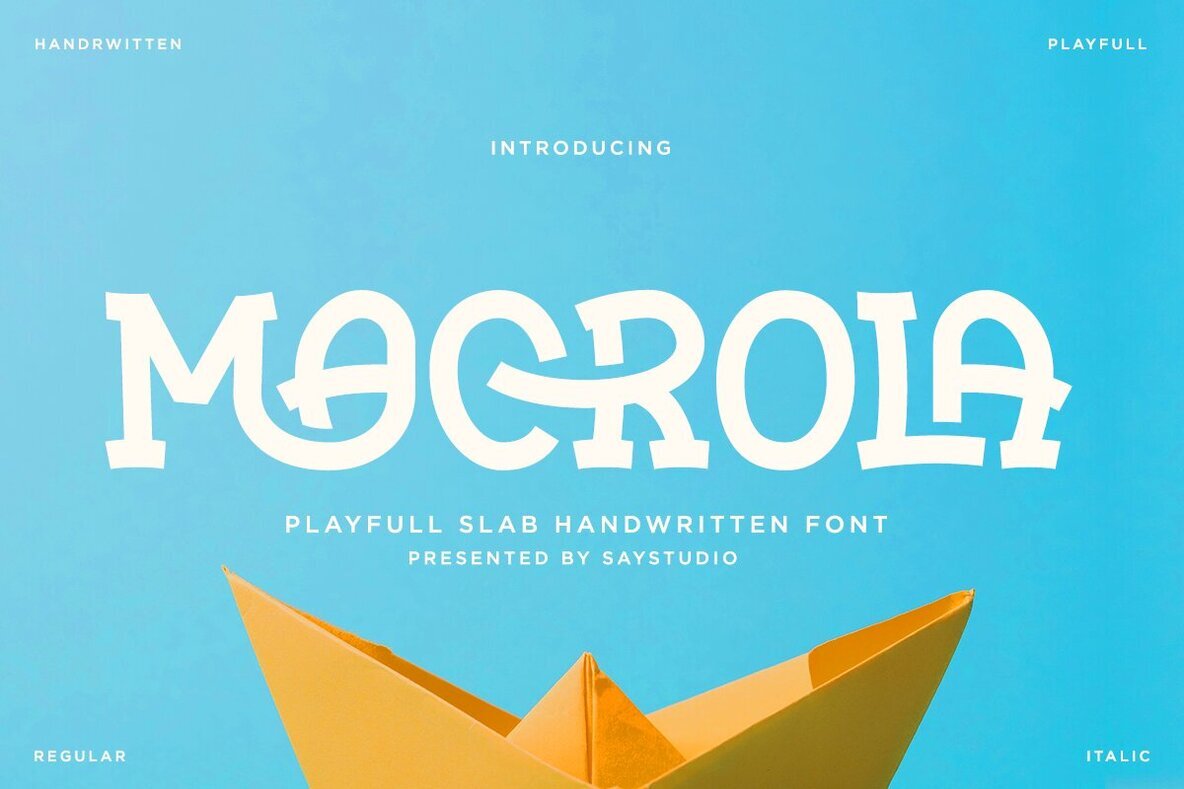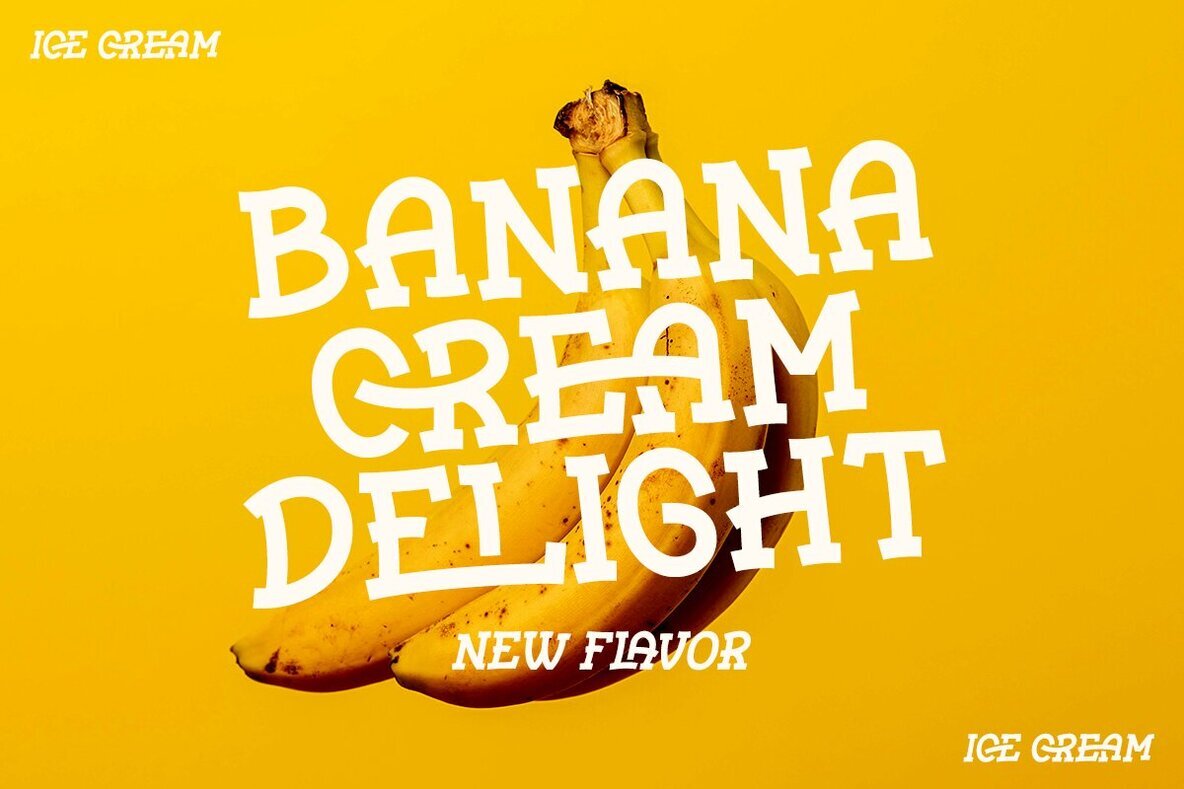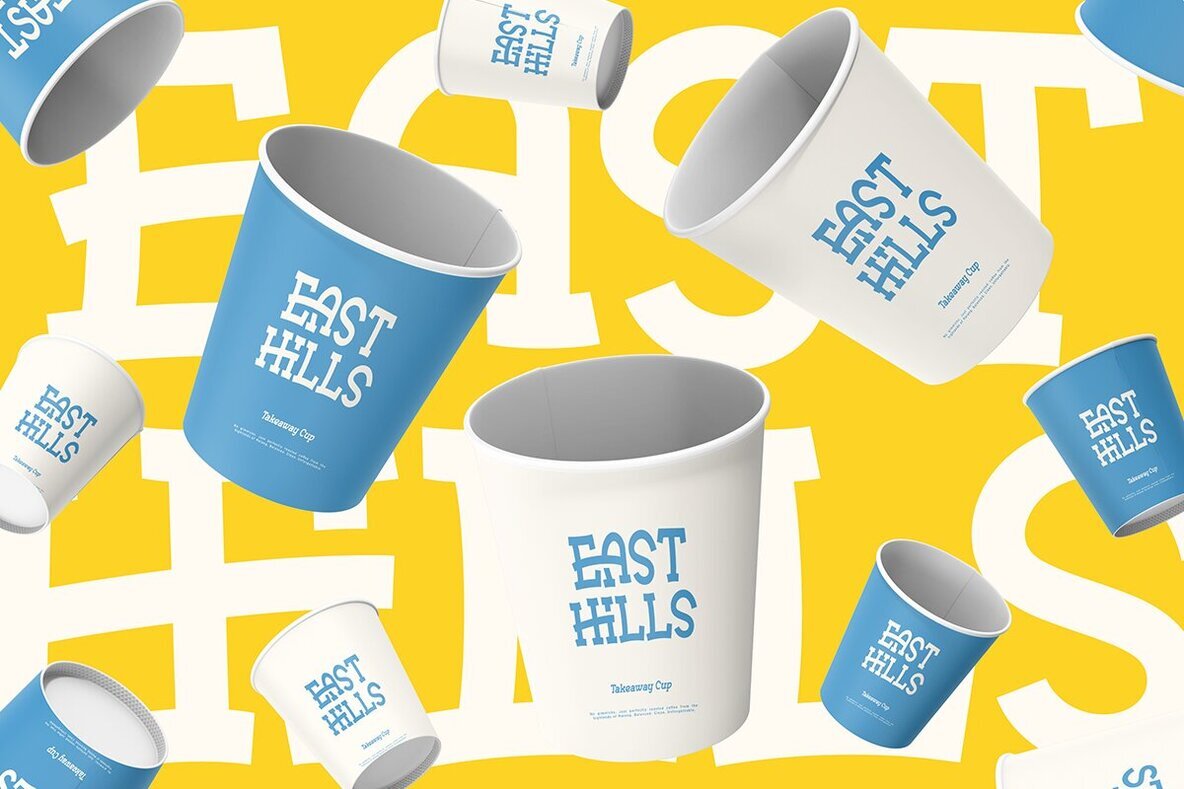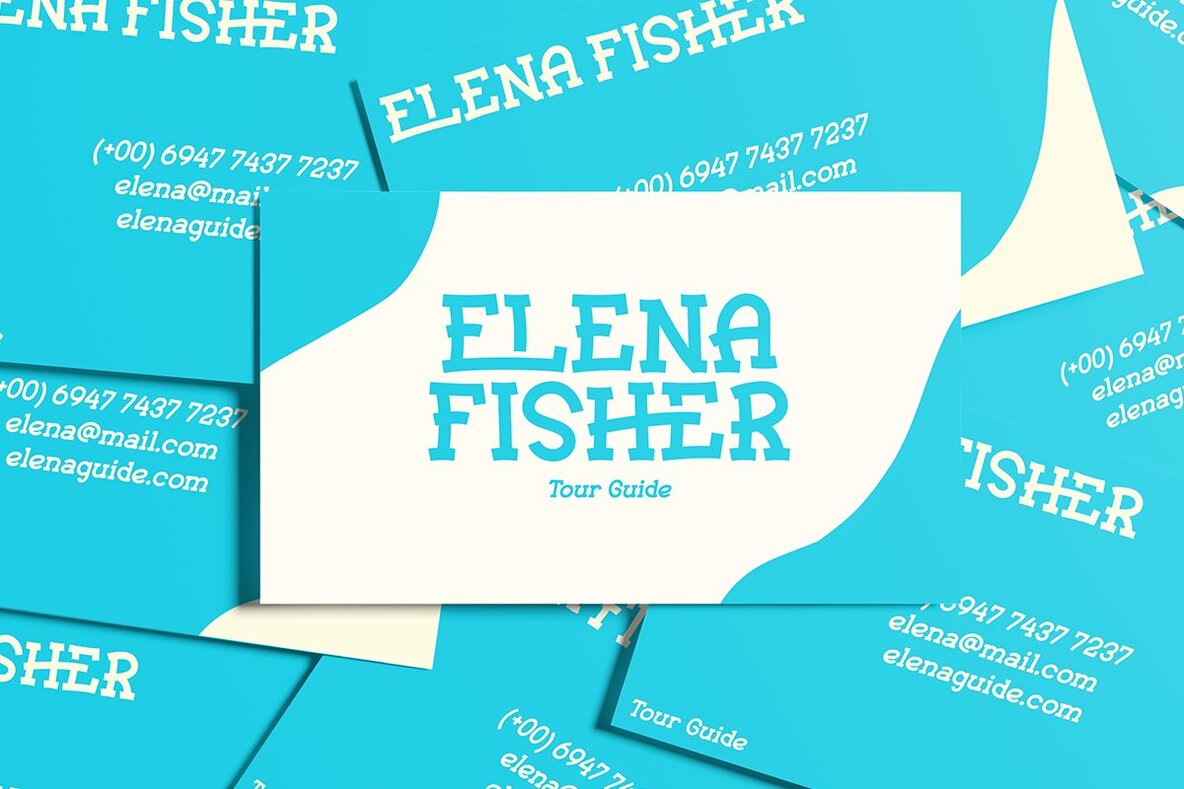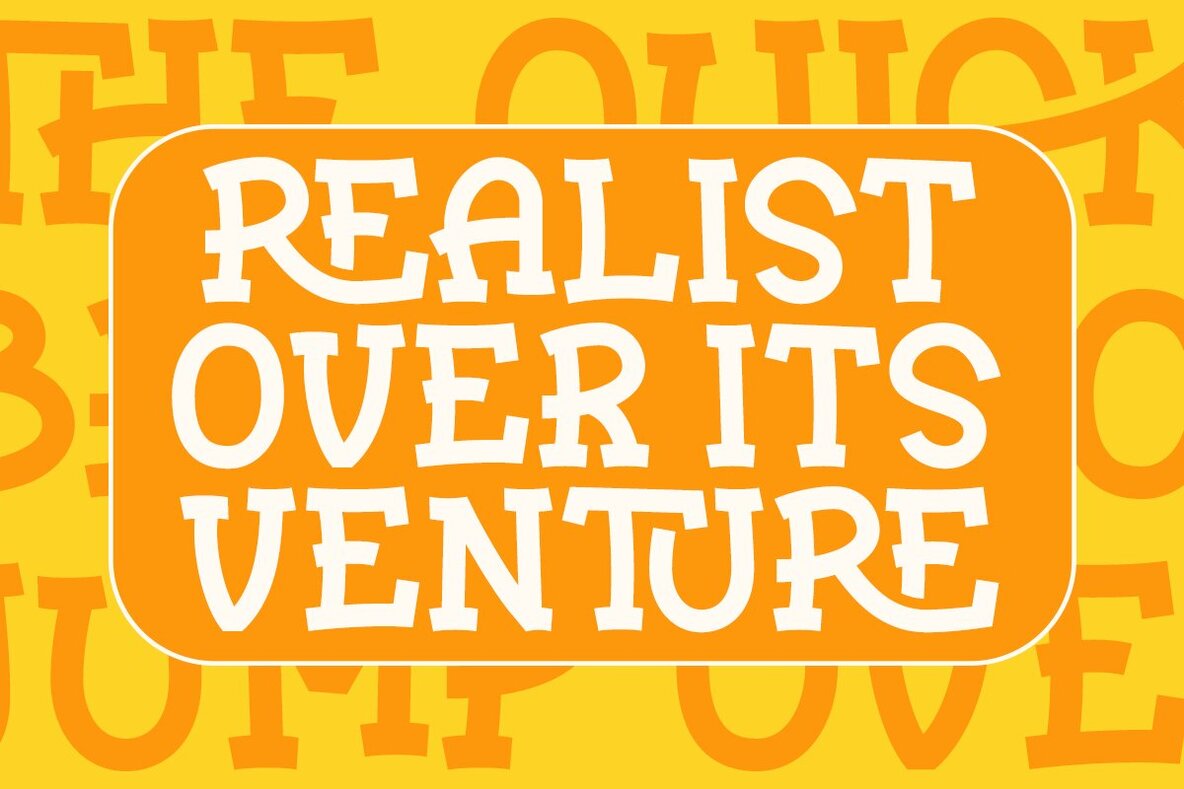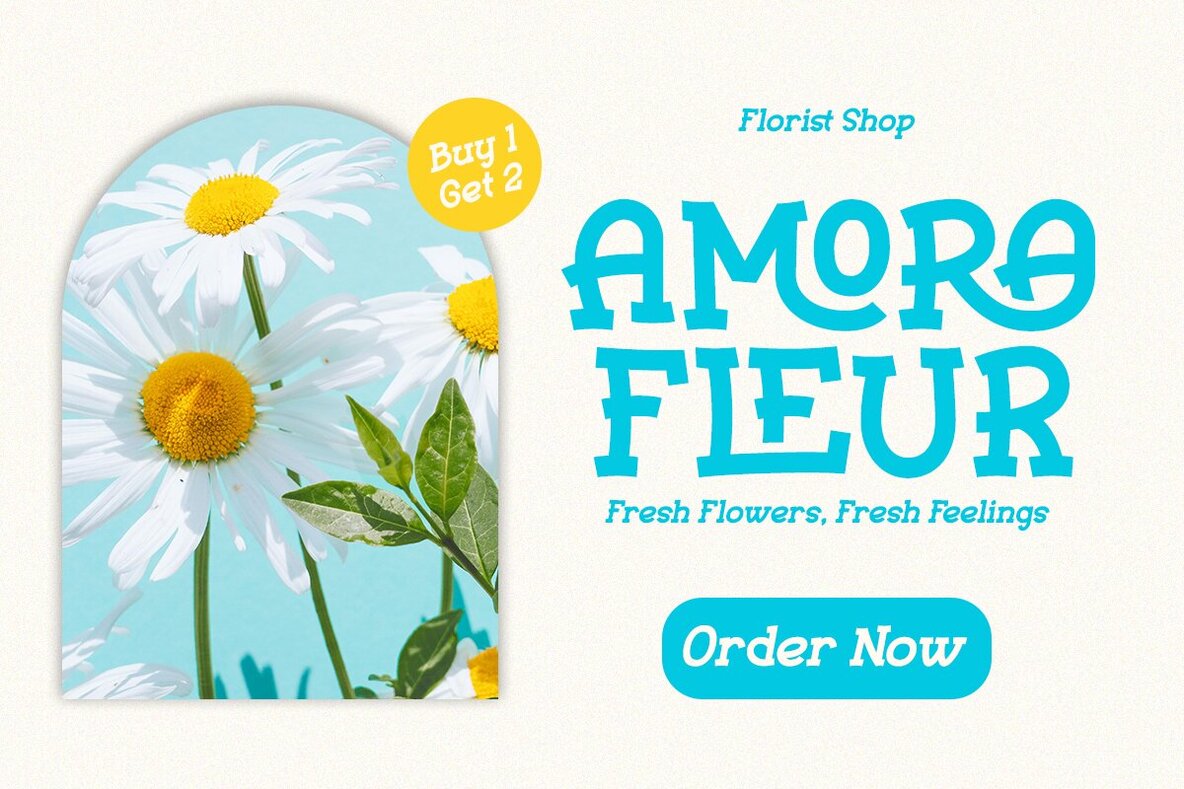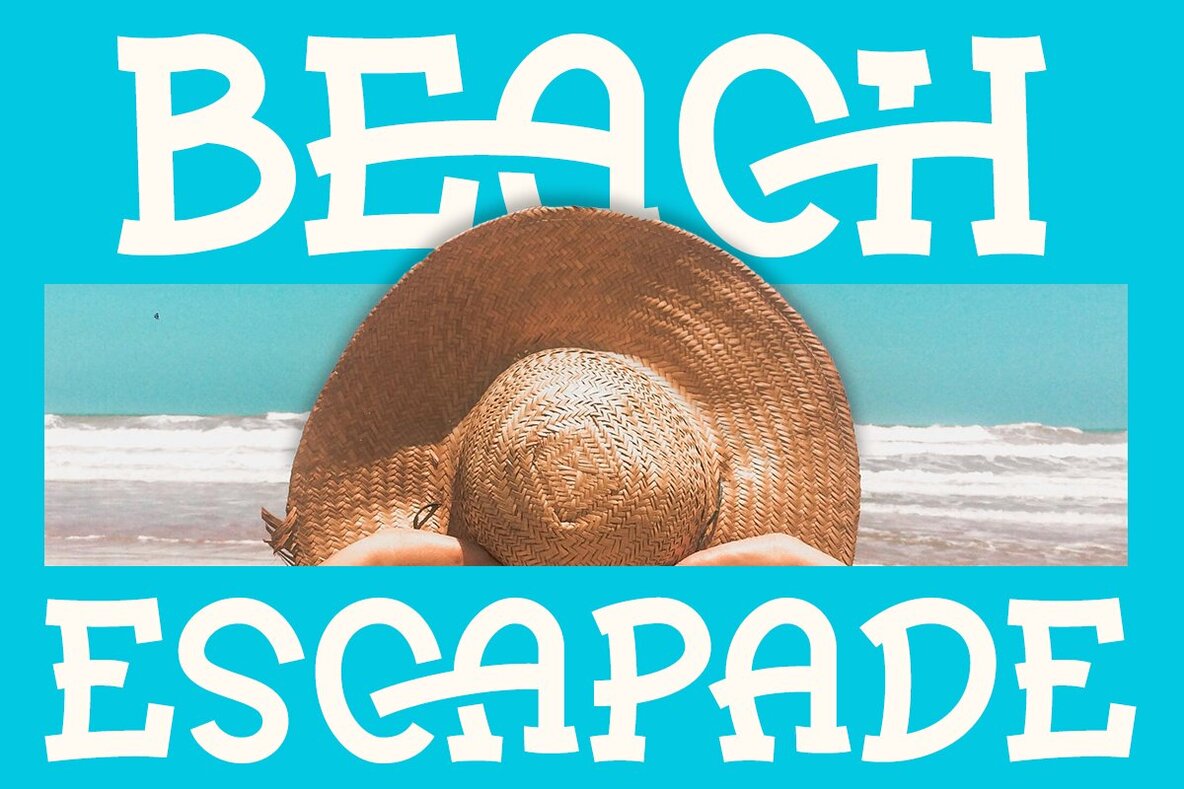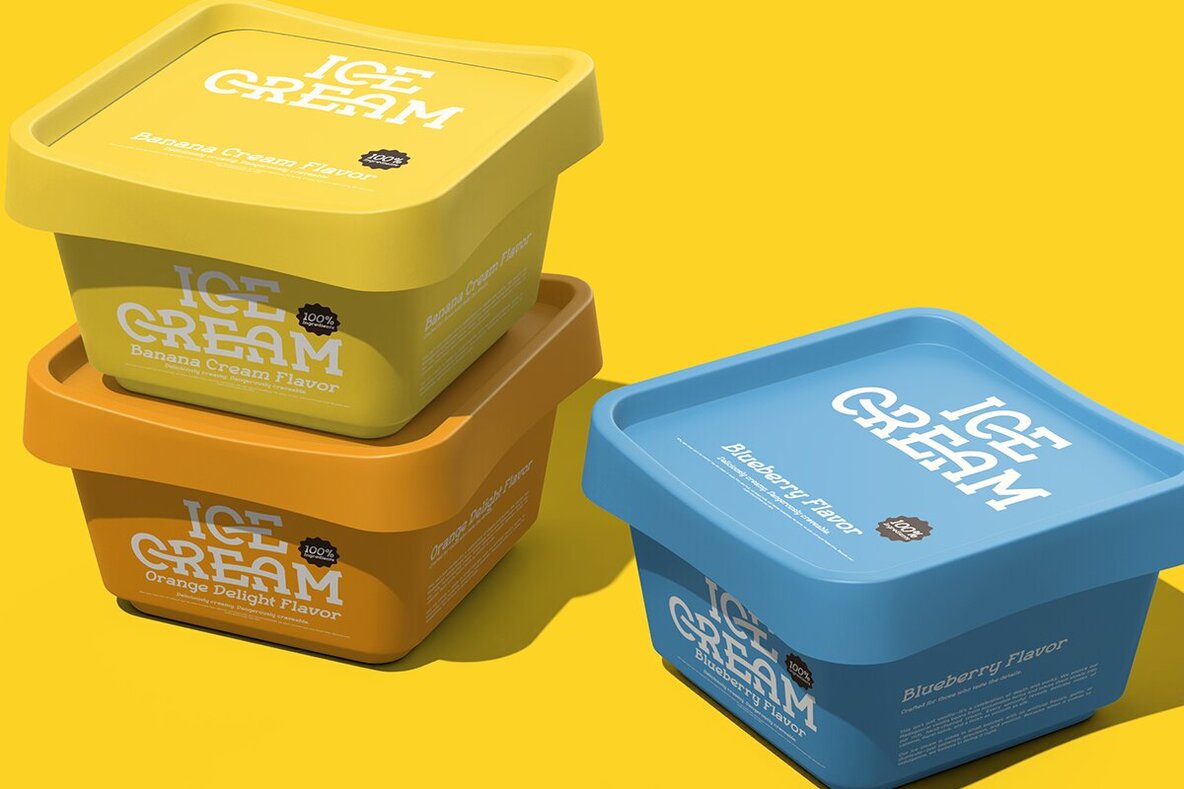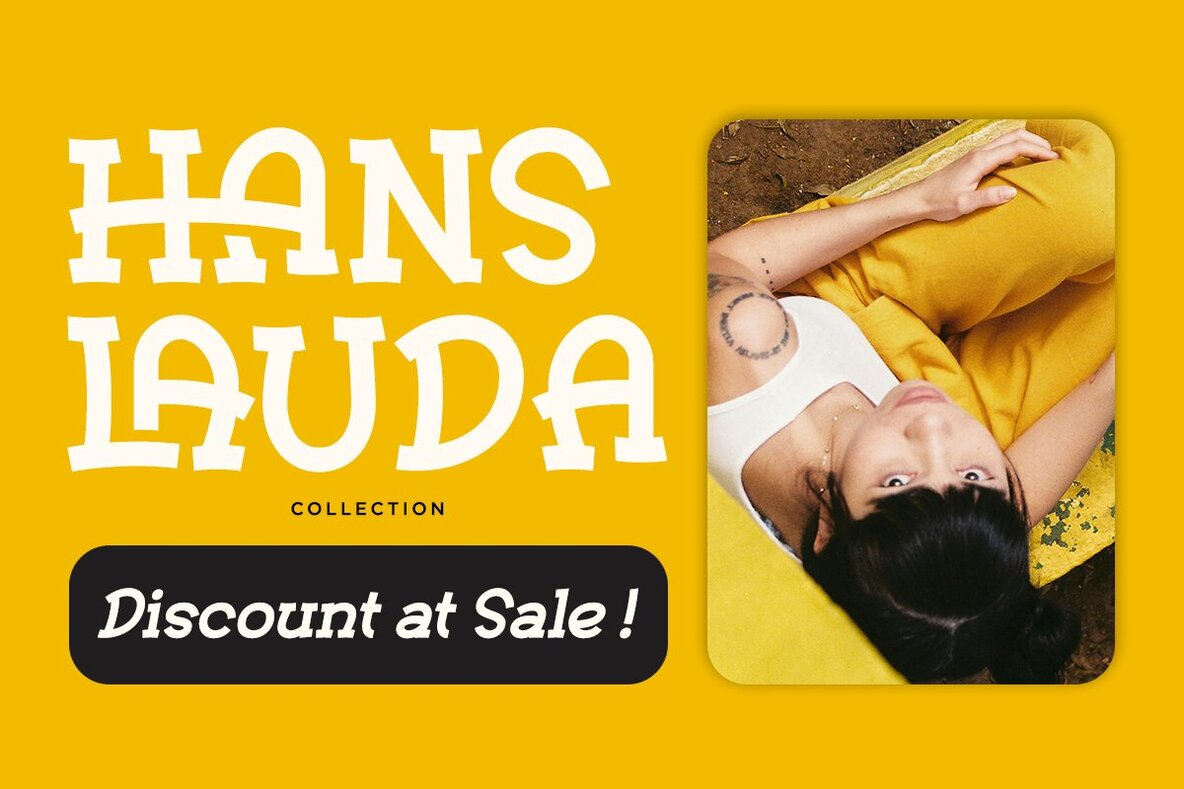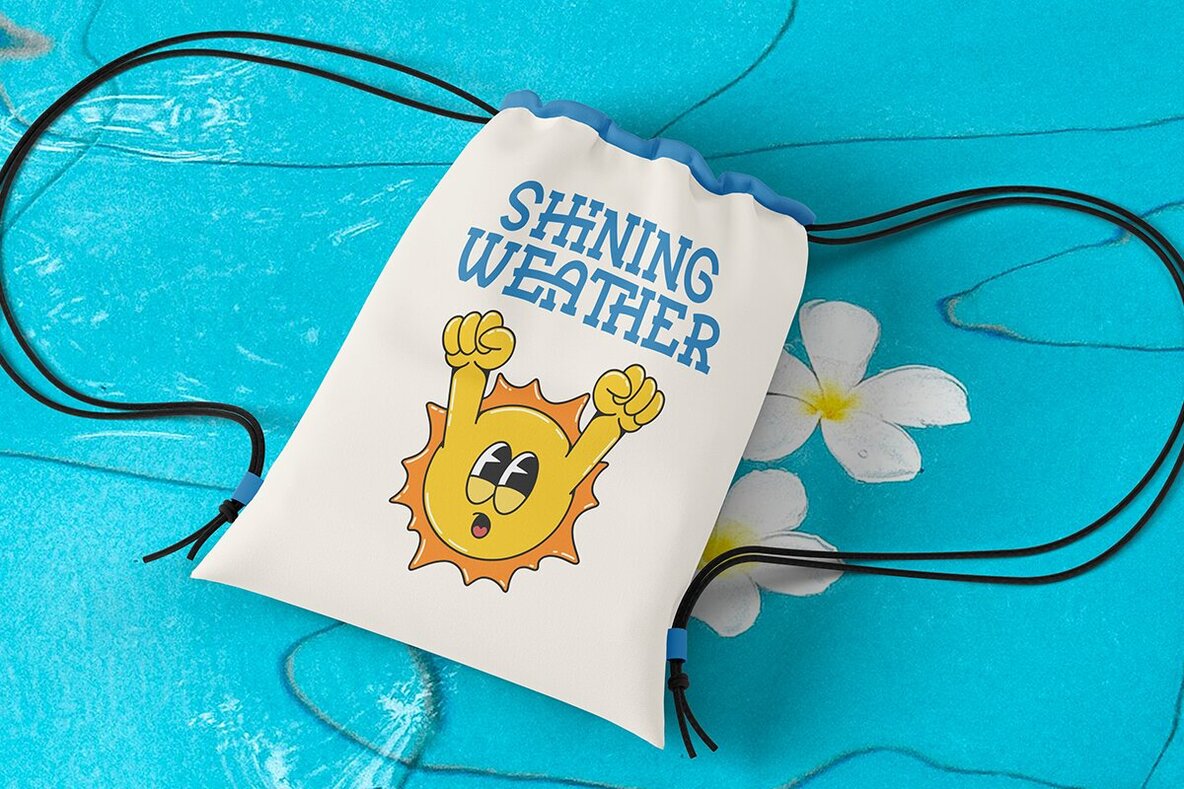
Macrola Font
Macrola stands out with its playful slab serifs and bold, lively shapes. Designed to bring personality and readability, this font thrives in logos, posters, packaging, and branding projects. Its balanced proportions and approachable form add warmth to both digital and print designs, making it easy to create a memorable visual identity. Macrola’s strong serifs and high-contrast curves ensure each letter remains clear and inviting. This makes it an outstanding choice for projects that require both creativity and clarity. Whether crafting a welcoming brand or eye-catching promotional materials, this font adds just the right amount of charm.Macrola Slab Serif Font